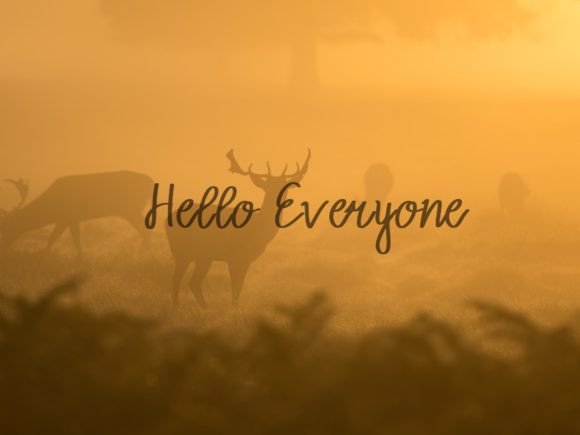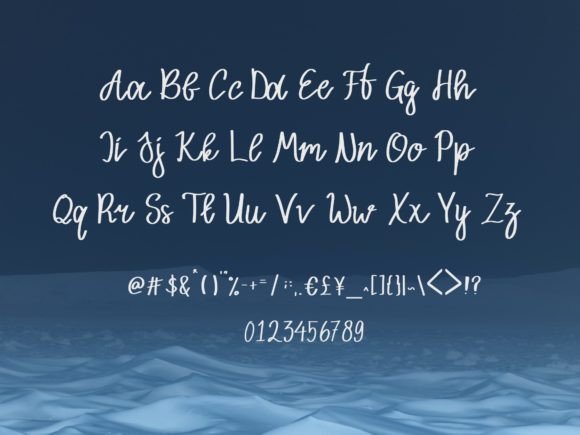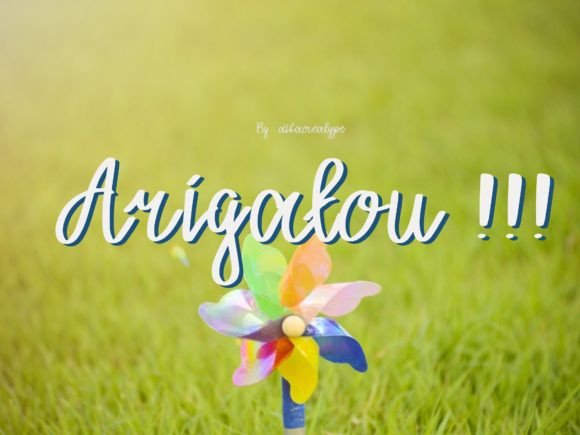
About Lantaran Font
“Lantaran: Where Natural Beauty Meets Effortless Elegance
Meet Lantaran, a natural and laid-back script font that effortlessly blends natural beauty with effortless elegance. Incredibly versatile, this font possesses the unique ability to enhance a wide range of designs, elevating them to the highest levels of visual appeal. Whether you’re designing invitations, crafting engaging social media posts, creating captivating logos, or producing eye-catching packaging, Lantaran breathes life into your favorite creative ideas, infusing them with a sense of authenticity and timeless charm.
The allure of Lantaran lies in its organic and relaxed script, which captures the essence of natural beauty and effortless elegance. Its flowing strokes and gentle curves create a sense of harmony, evoking the feeling of a handwritten note on a lazy afternoon. This laid-back quality gives Lantaran its versatile charm, allowing it to seamlessly adapt to various design contexts while retaining its distinctive character. Imagine using Lantaran to design invitations for a rustic-themed wedding, where its natural beauty complements the organic elements of the celebration. Visualize it gracing social media posts, adding a touch of effortless elegance to your brand’s online presence. Picture it crafting logos that reflect the authentic spirit of your business, capturing the essence of your unique identity. Envision it adorning packaging, creating a sense of connection between your product and nature. With Lantaran, your creative ideas come to life with a touch of natural beauty and timeless elegance.
Lantaran’s versatility makes it a valuable asset for designers seeking a font that effortlessly combines natural charm and effortless elegance. Its natural flow and approachable character invite the reader in, creating a sense of warmth and connection. By incorporating Lantaran into your designs, you infuse your projects with a touch of authenticity, making every piece visually appealing and relatable. It becomes the perfect choice for those who value both style and approachability, providing a versatile solution for a wide range of design needs.
Moreover, Lantaran is not just a font; it’s an embodiment of natural beauty and effortless elegance in typography. Its laid-back script and gentle curves resonate with individuals who appreciate the beauty of authentic yet refined design, making it a favorite among designers and enthusiasts seeking a font that effortlessly captures the essence of effortless elegance. Lantaran becomes a symbol of your creativity, allowing you to create designs that not only catch the eye but also evoke a sense of natural beauty and timeless charm.
In a world where natural beauty meets effortless elegance in typography, Lantaran helps you make a statement. It speaks the language of relaxed sophistication and authentic charm, resonating with those who appreciate the beauty of natural design elements. Whether you’re designing invitations, social media posts, logos, or packaging, Lantaran becomes your trusted companion, guiding you toward design excellence.
So, why settle for ordinary when you can embrace the extraordinary with Lantaran? Let this natural and laid-back script font be the canvas for your creative expressions, and watch as your projects come to life with natural beauty and effortless elegance. Let your ideas flow, and let Lantaran be the brushstroke that paints your designs into visually captivating masterpieces, leaving a lasting impression on the hearts of your audience. Elevate your designs with Lantaran, where natural beauty meets effortless elegance, and transform your creations into works of art that resonate with the authentic spirit of timeless charm and genuine sophistication.”